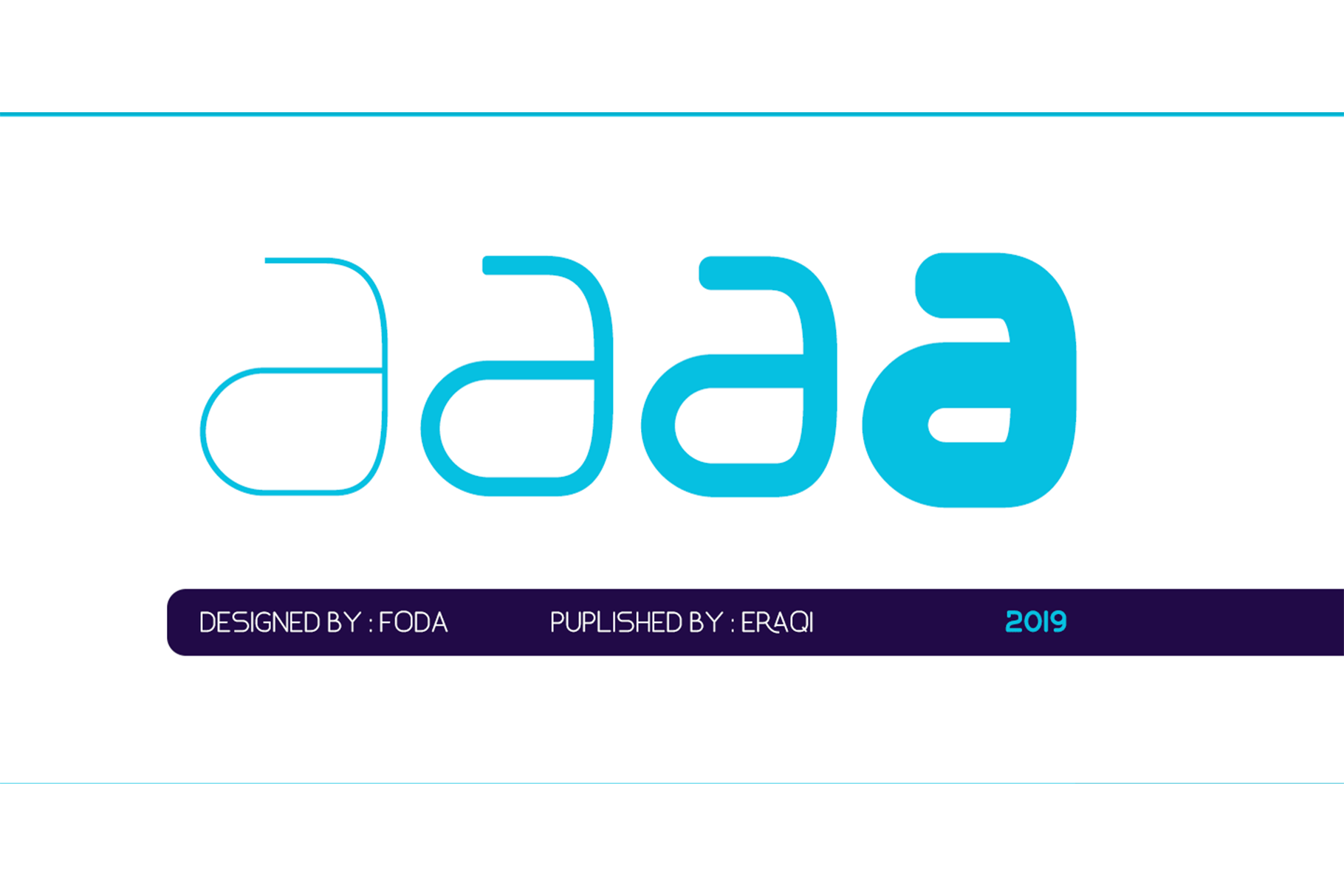
Roxon Font
Roxon is a sans serif typeface of 4 weights from Extra Light to Bold and can be used as both a headline and text face. Roxon is recommended for using in long-form writing and articles, since a serif is far more readable for longer passages of text. The typeface has a carefully crafted weight range, with ligatures.